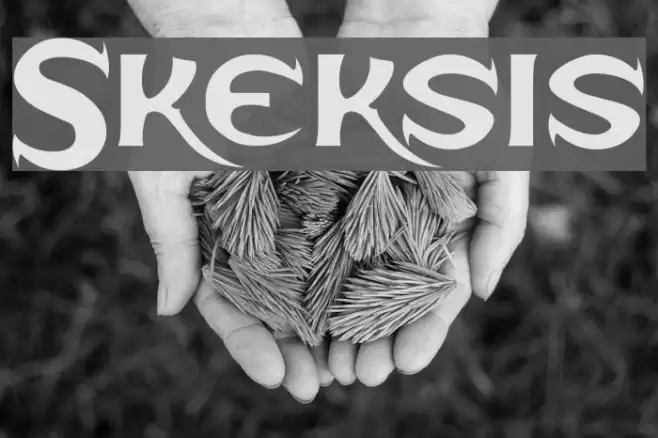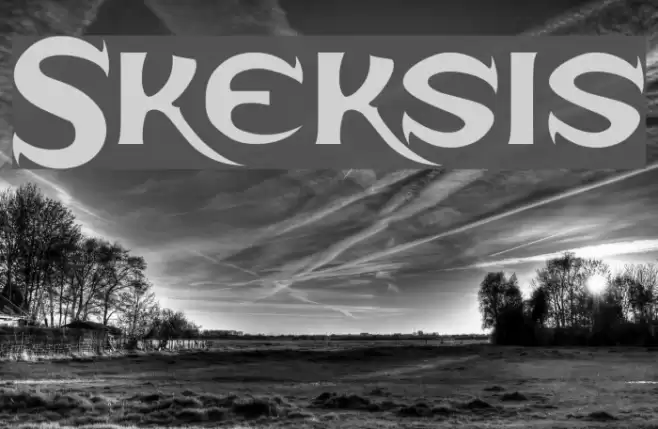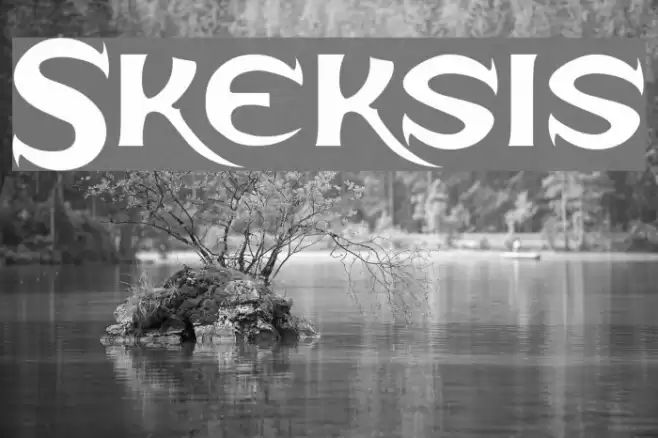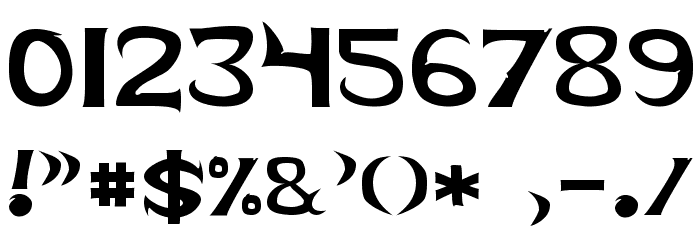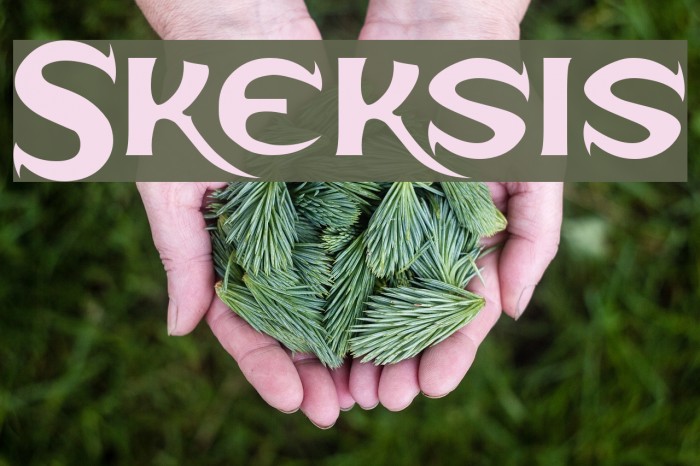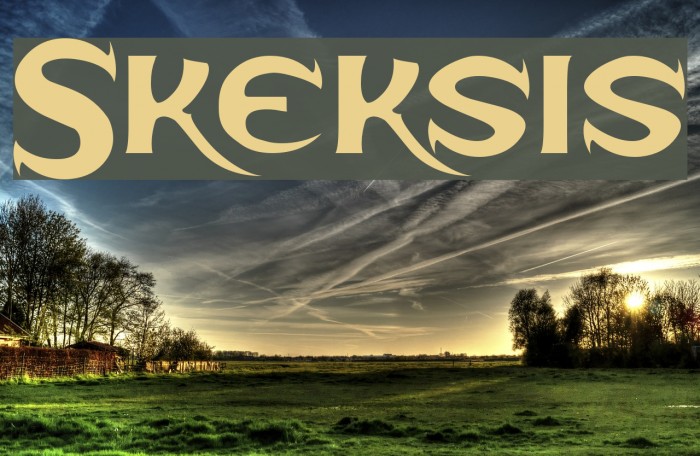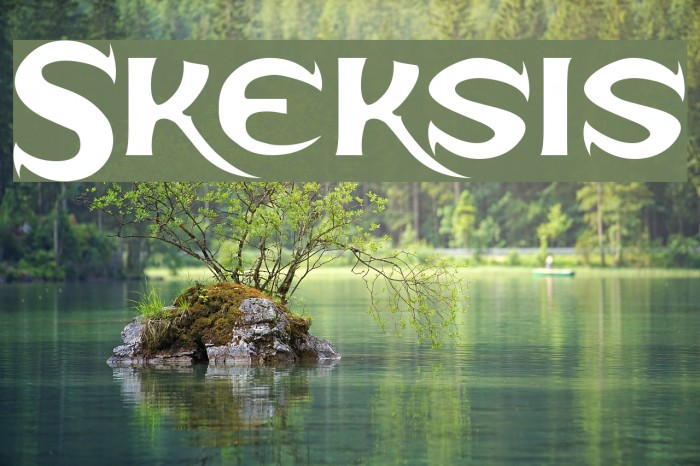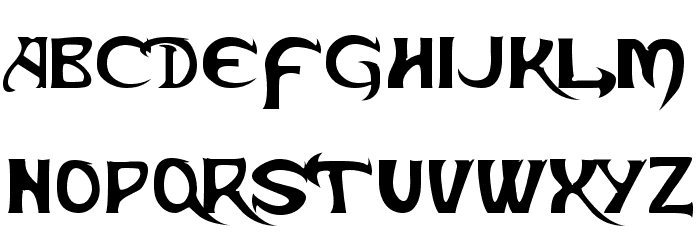
Skeksis Font
Skeksis Description
This font features a bold and dramatic style with sharp, angular edges and a gothic flair. The uppercase letters are particularly striking, with exaggerated serifs and unique curves that give them a distinct, almost mythical appearance. The lowercase letters maintain the same boldness, offering a cohesive look across the alphabet. Numbers and special characters are equally stylized, ensuring consistency throughout. The font's overall design is reminiscent of medieval or fantasy themes, making it ideal for projects that require a touch of the dramatic or otherworldly.
A bold, gothic-style font with sharp, angular edges and a dramatic flair.
- Proposed Projects: Ideal for fantasy-themed designs, book covers, movie posters, or any project requiring a dramatic, gothic touch.
- Overall Style: Gothic, Dramatic, Fantasy